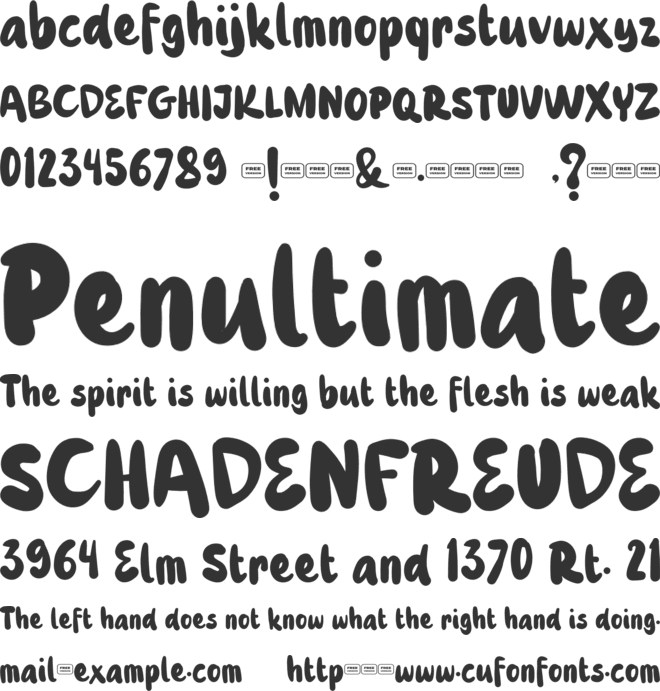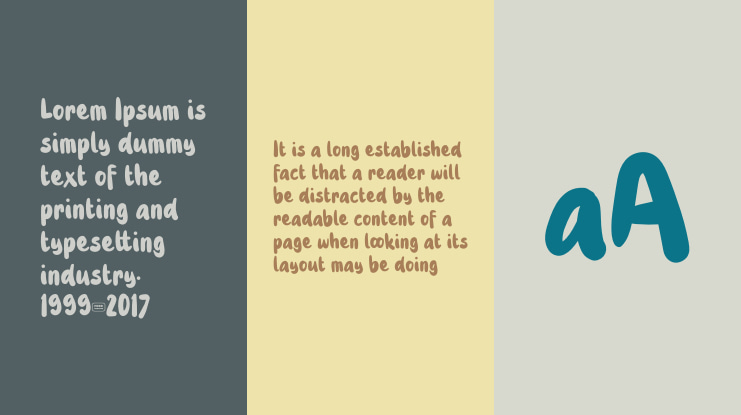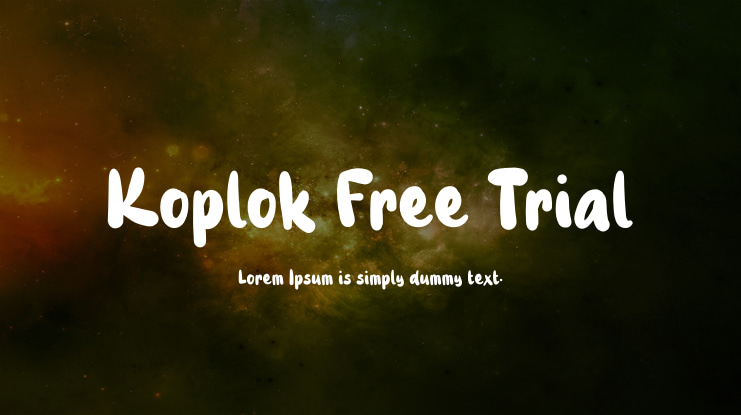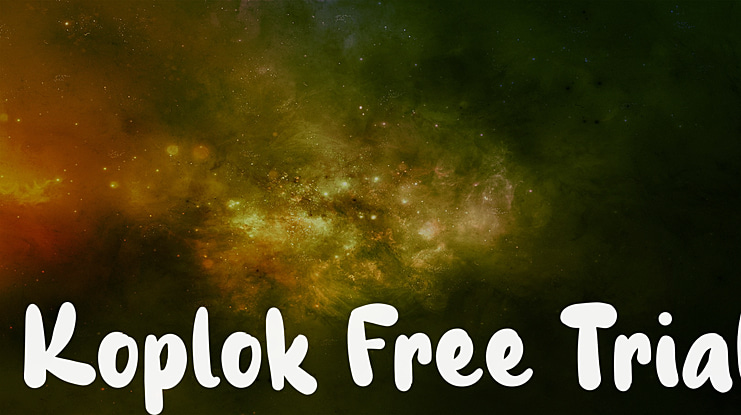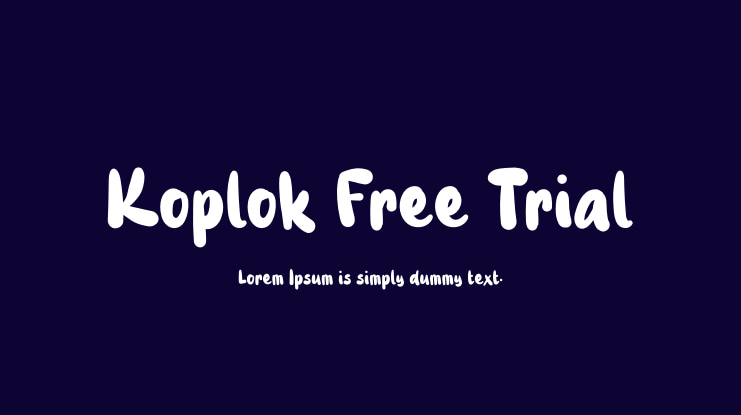
Koplok Free Trial Font
Koplok is playful font which puts a smile on your projects and will inspire you to create something fun and memorable. It is perfect for headings, flyer, greeting cards, product packaging, book cover, printed quotes, logotype, apparel design, album covers, etc